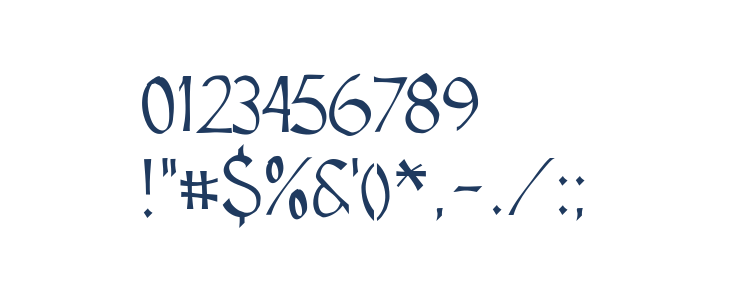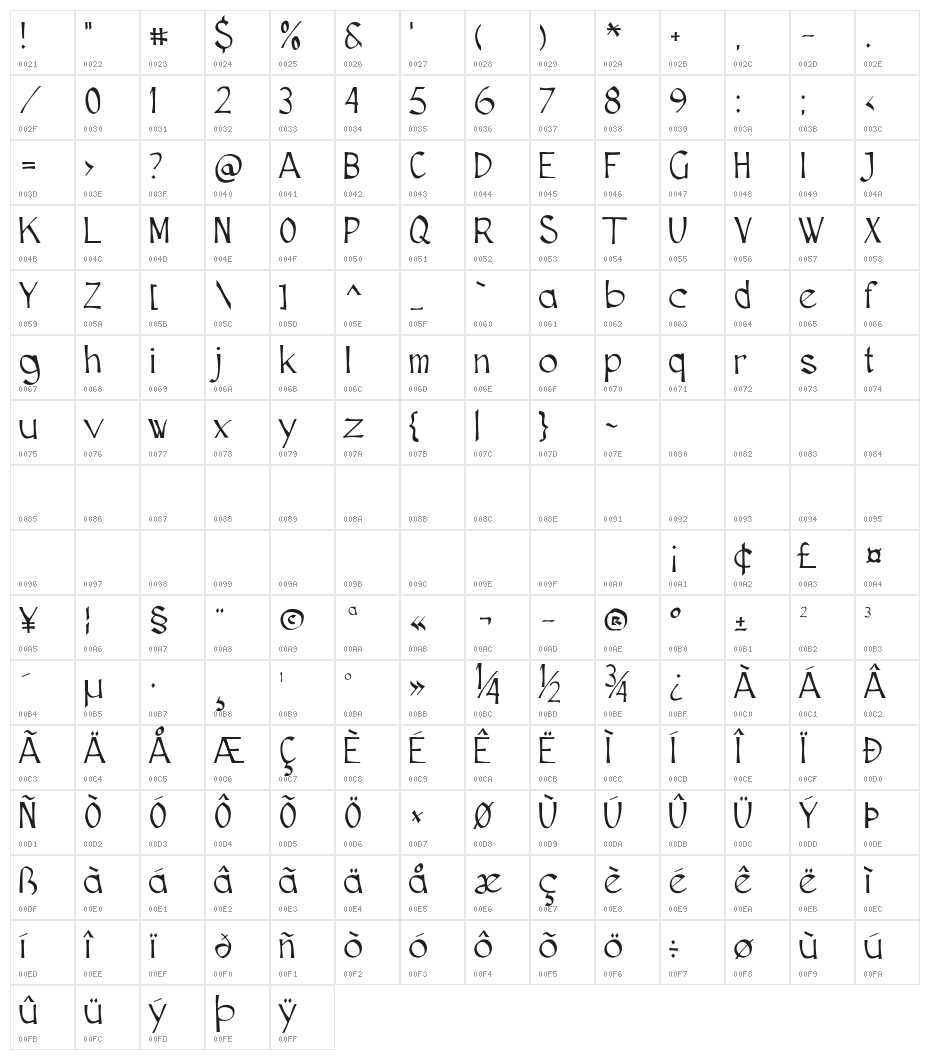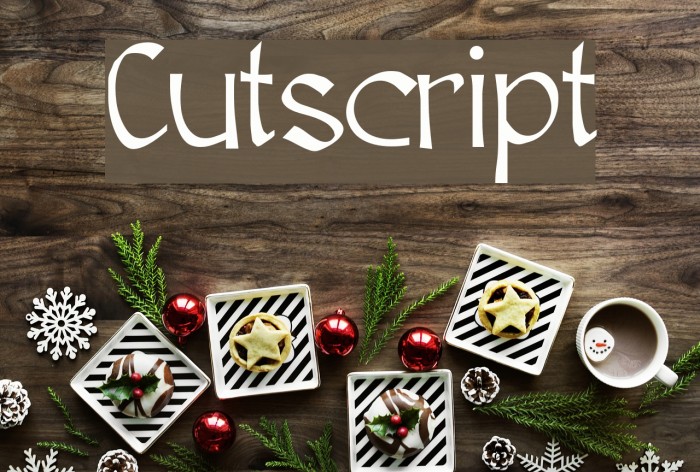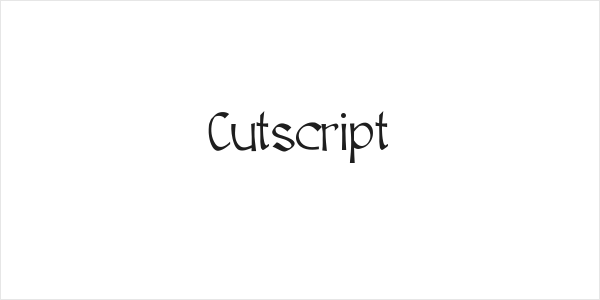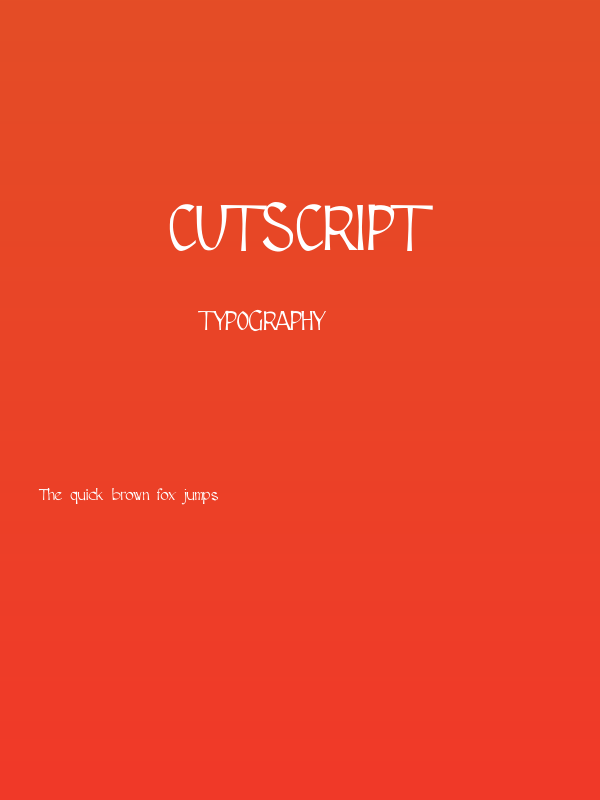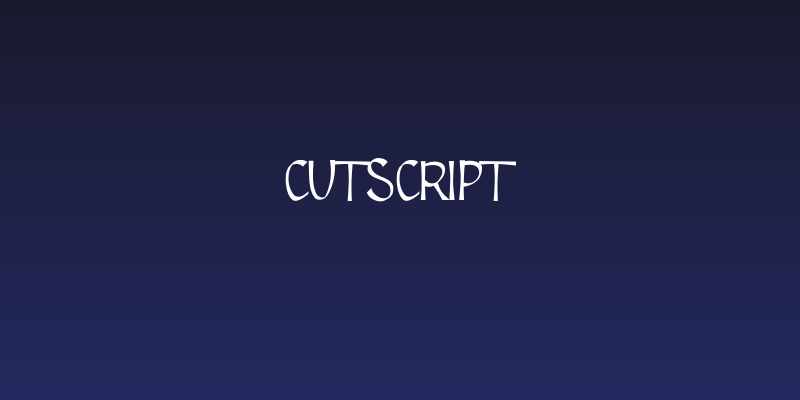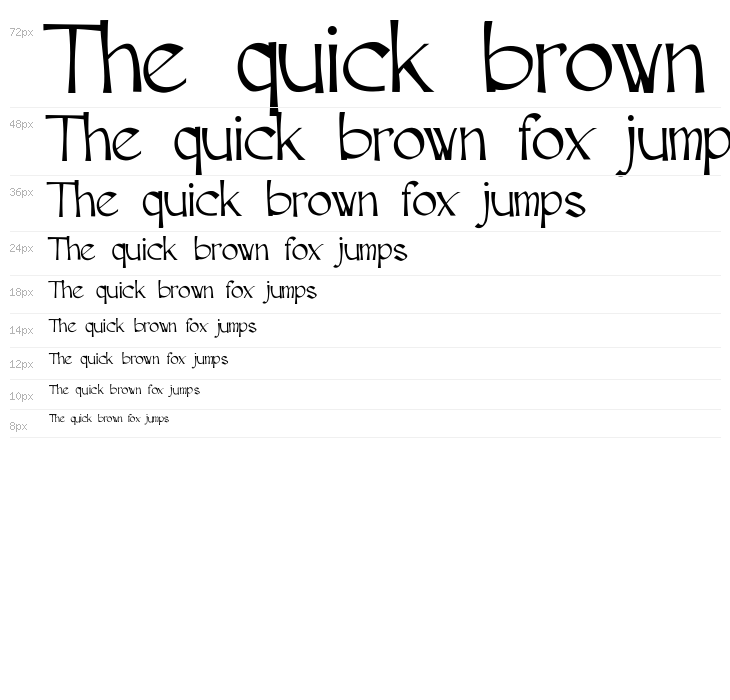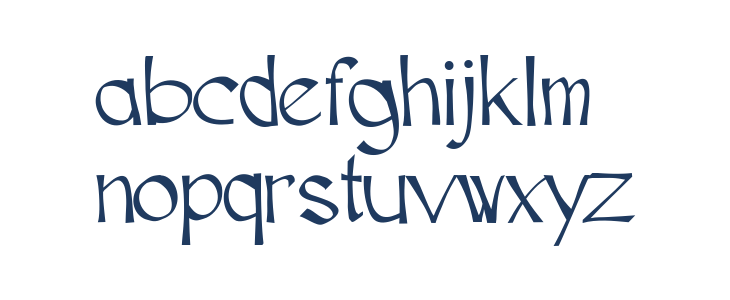
Cutscript Font
Cutscript Description
This font features a unique, hand-drawn style with a playful and artistic flair. The characters exhibit a slightly irregular and whimsical appearance, reminiscent of a script written with a brush or pen. The uppercase letters have a bold presence with varying stroke widths, while the lowercase letters maintain a consistent flow, adding to the font's charm. Numbers and special characters are designed to match the overall aesthetic, making them suitable for creative and informal projects. The font's distinctive style is perfect for capturing attention and conveying a sense of creativity and individuality.
| Proposed Projects | Ideal for greeting cards, posters, children's books, and creative branding. |